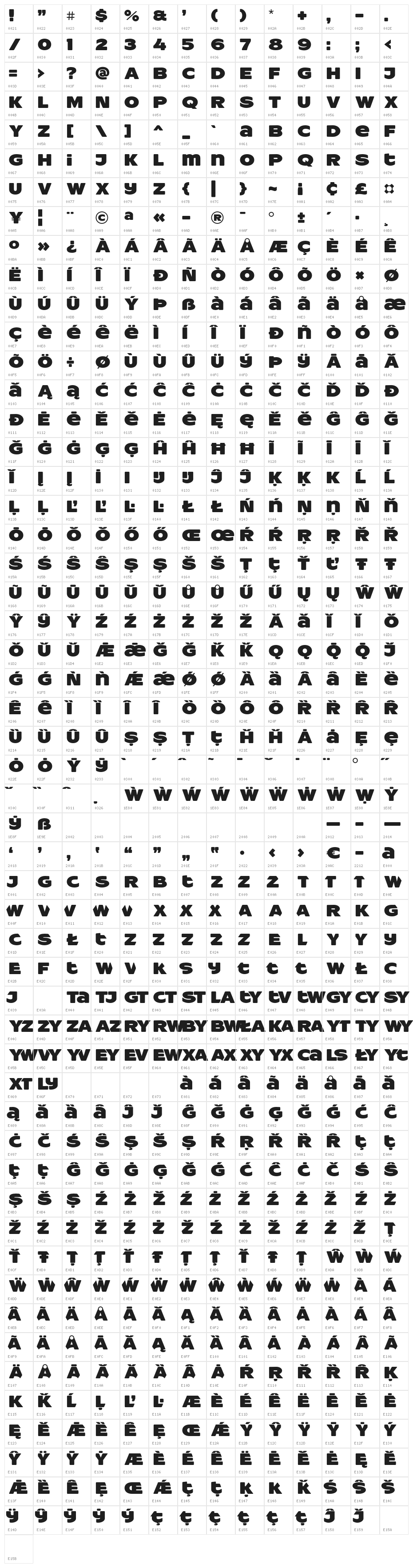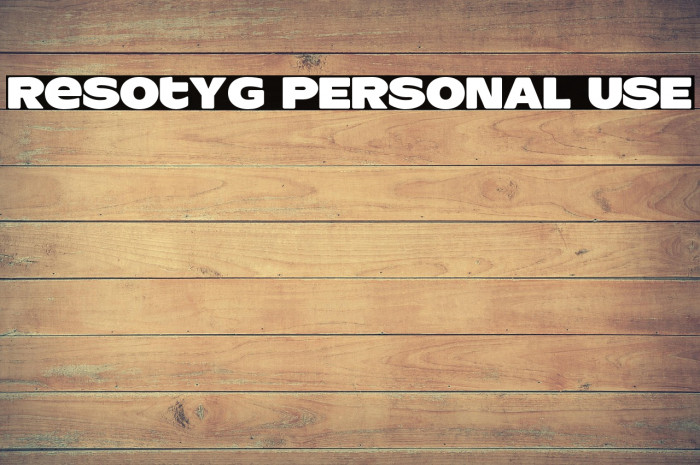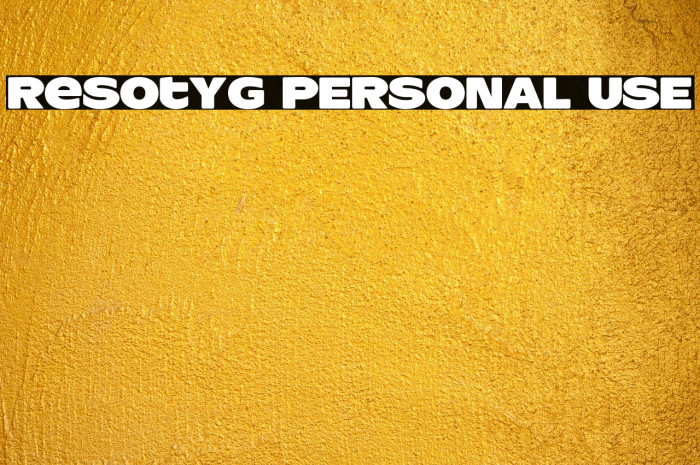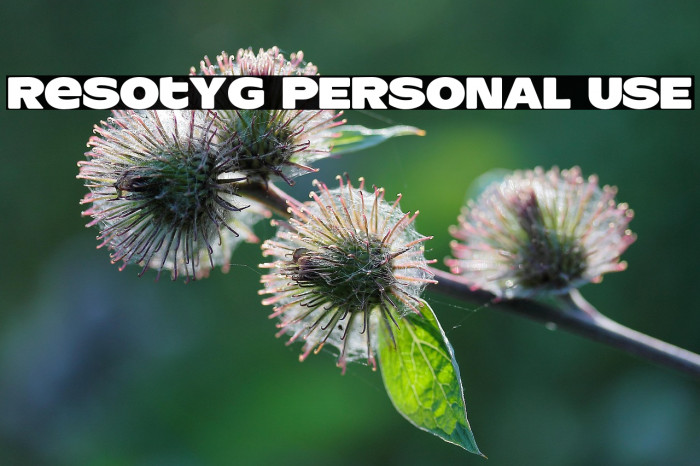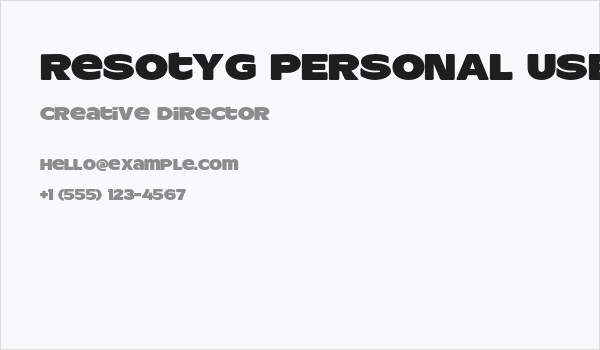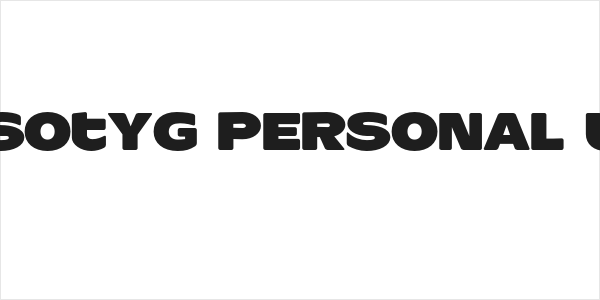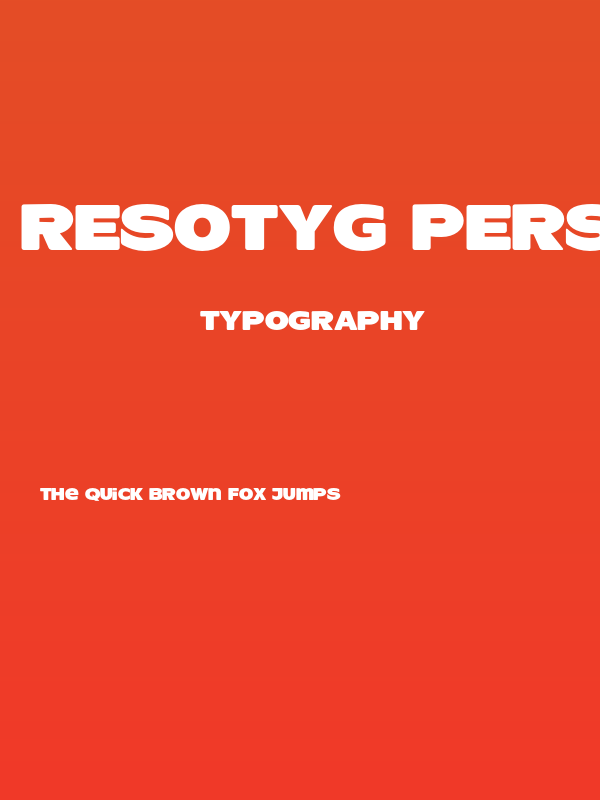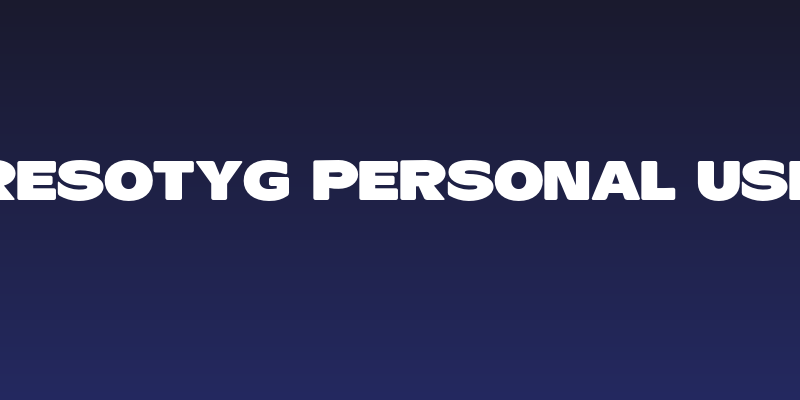
ResotYg PERSONAL USE Font
ResotYg PERSONAL USE Description
This font features a bold and robust design with thick, rounded strokes that give it a strong presence. The characters are uniformly wide, creating a sense of stability and balance. The uppercase and lowercase letters maintain a consistent style, with the lowercase mirroring the uppercase in form but slightly reduced in size. The numerals are equally bold, ensuring they stand out clearly. Special characters are designed to match the overall aesthetic, with a playful yet sturdy appearance. This font's heavy weight and rounded edges make it ideal for impactful and attention-grabbing designs.
Proposed ProjectsIdeal for logos, headlines, posters, and branding materials that require a bold statement.